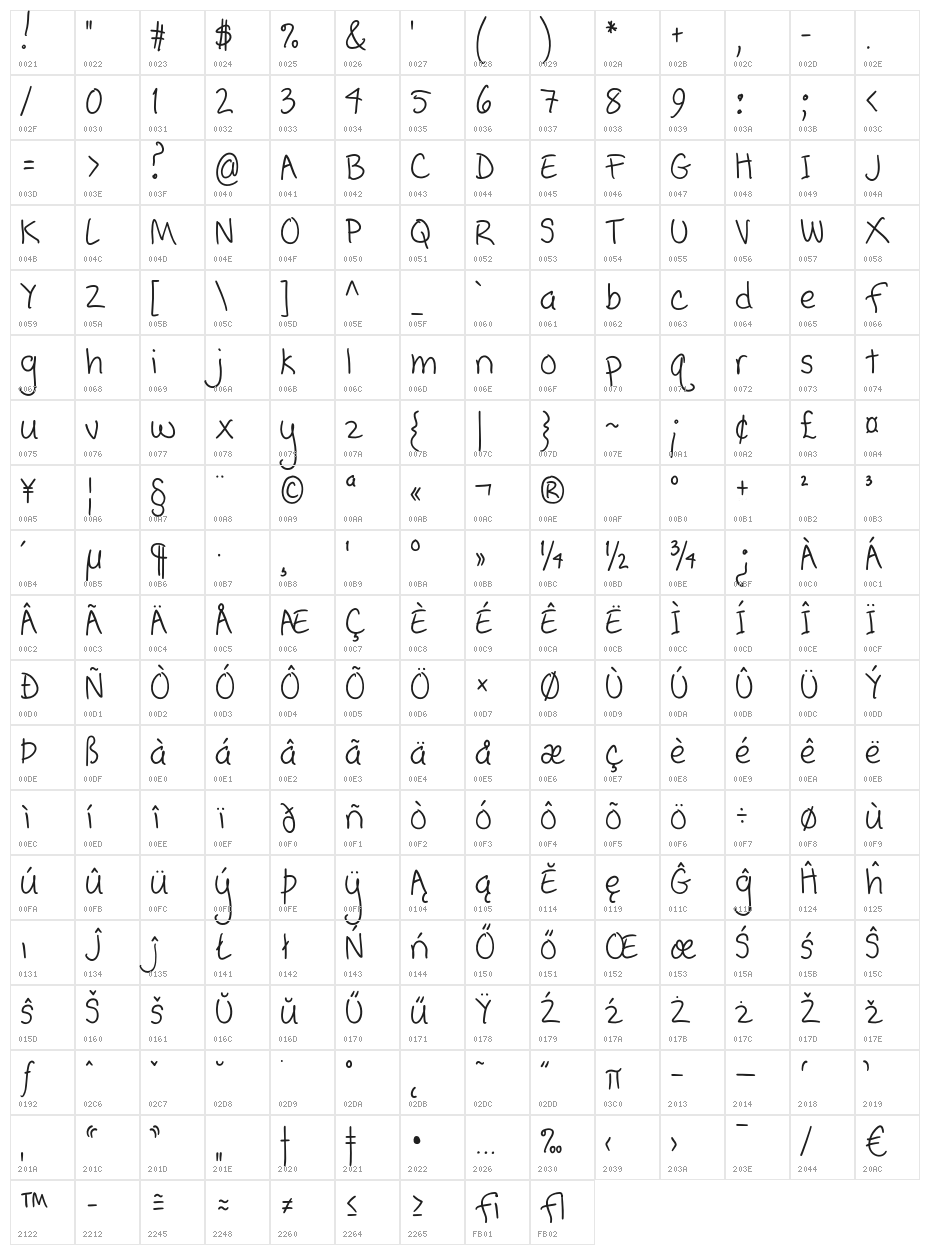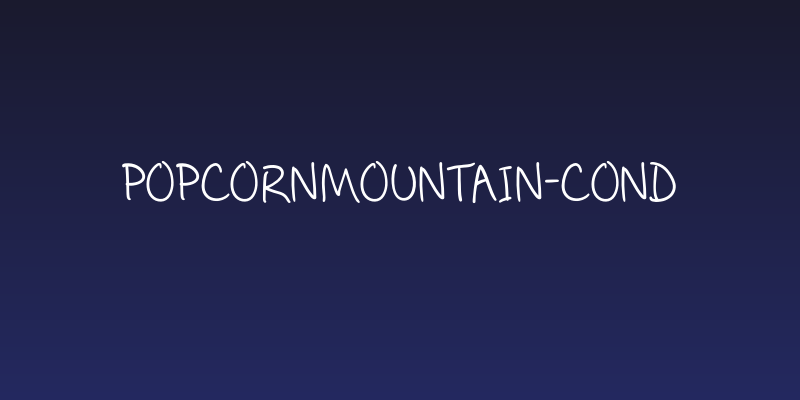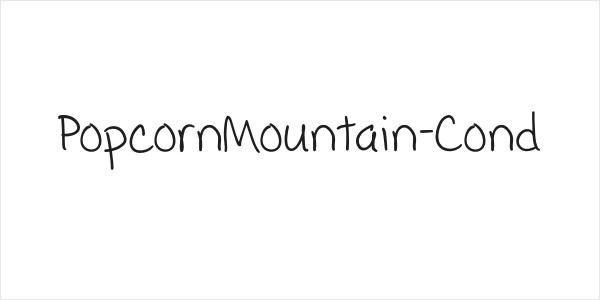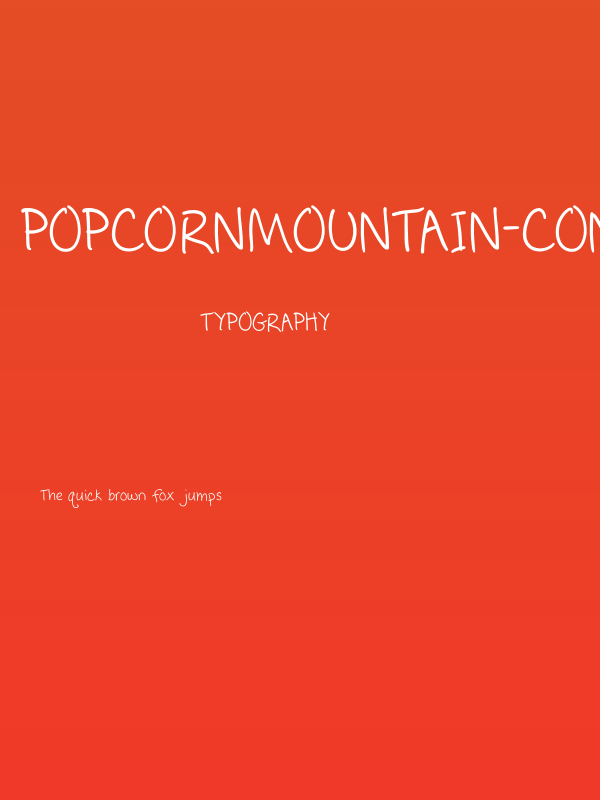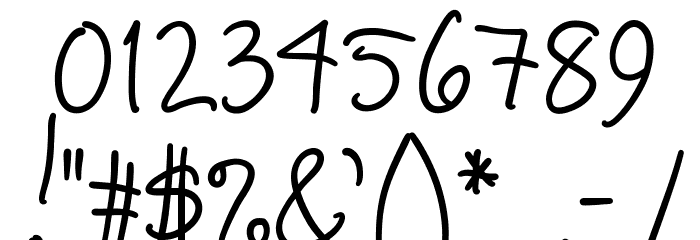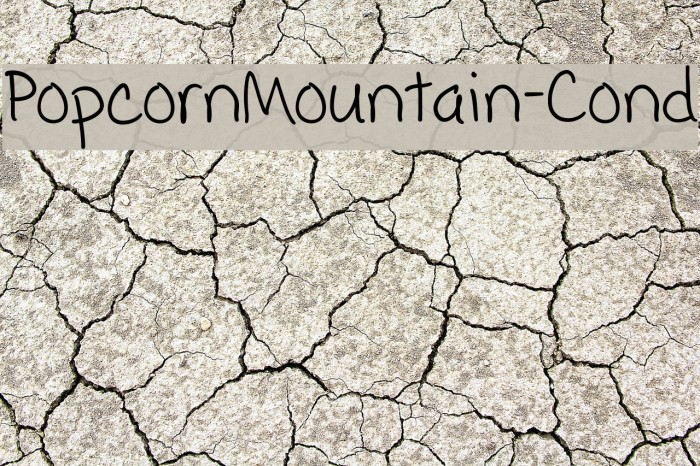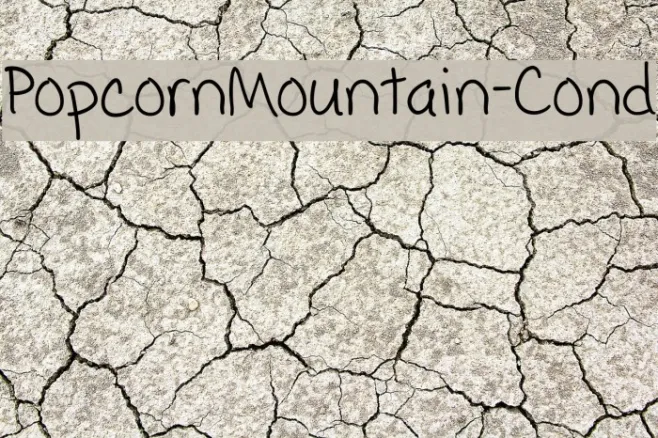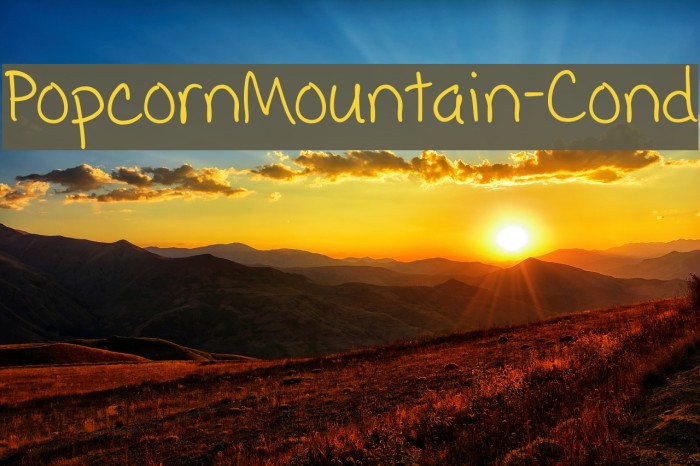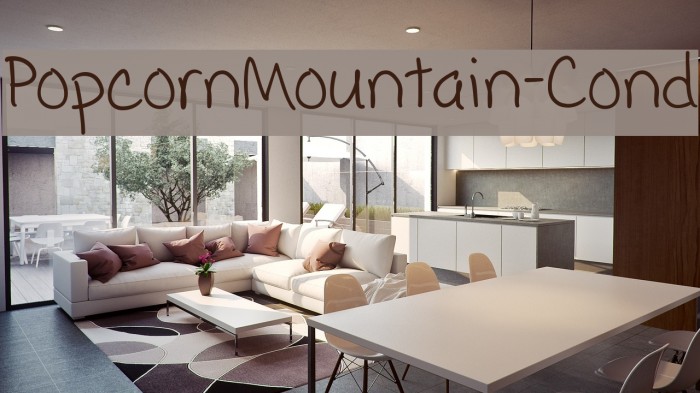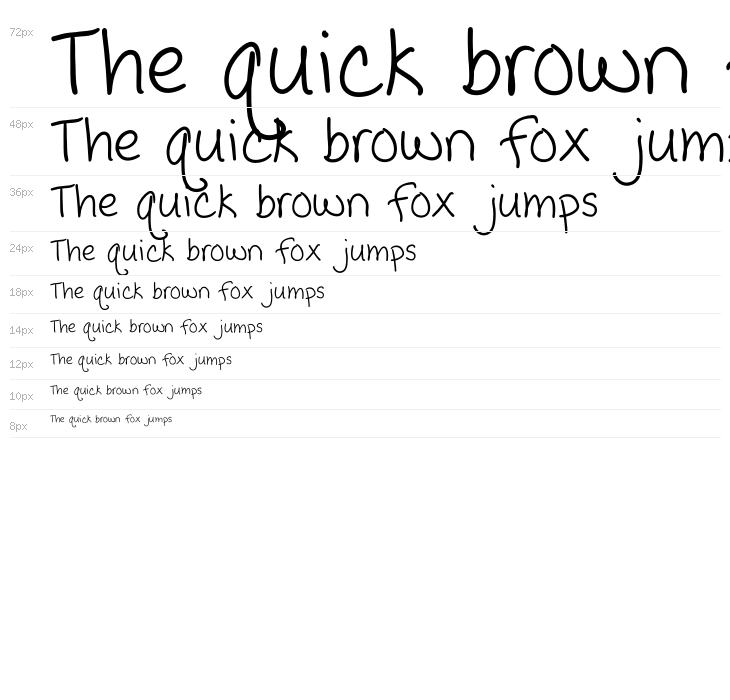
PopcornMountain-Cond Font
PopcornMountain-Cond Description
This playful and casual font features a handwritten style with a relaxed and friendly appearance. The characters are slightly uneven, adding to its informal charm. The strokes are smooth and rounded, giving it a warm and approachable feel. The uppercase and lowercase letters are consistent in style, maintaining a cohesive look throughout. Numbers and special characters are designed with the same playful touch, making this font versatile for various creative projects.
| Proposed Projects | Ideal for greeting cards, children's books, playful branding, and casual invitations. |